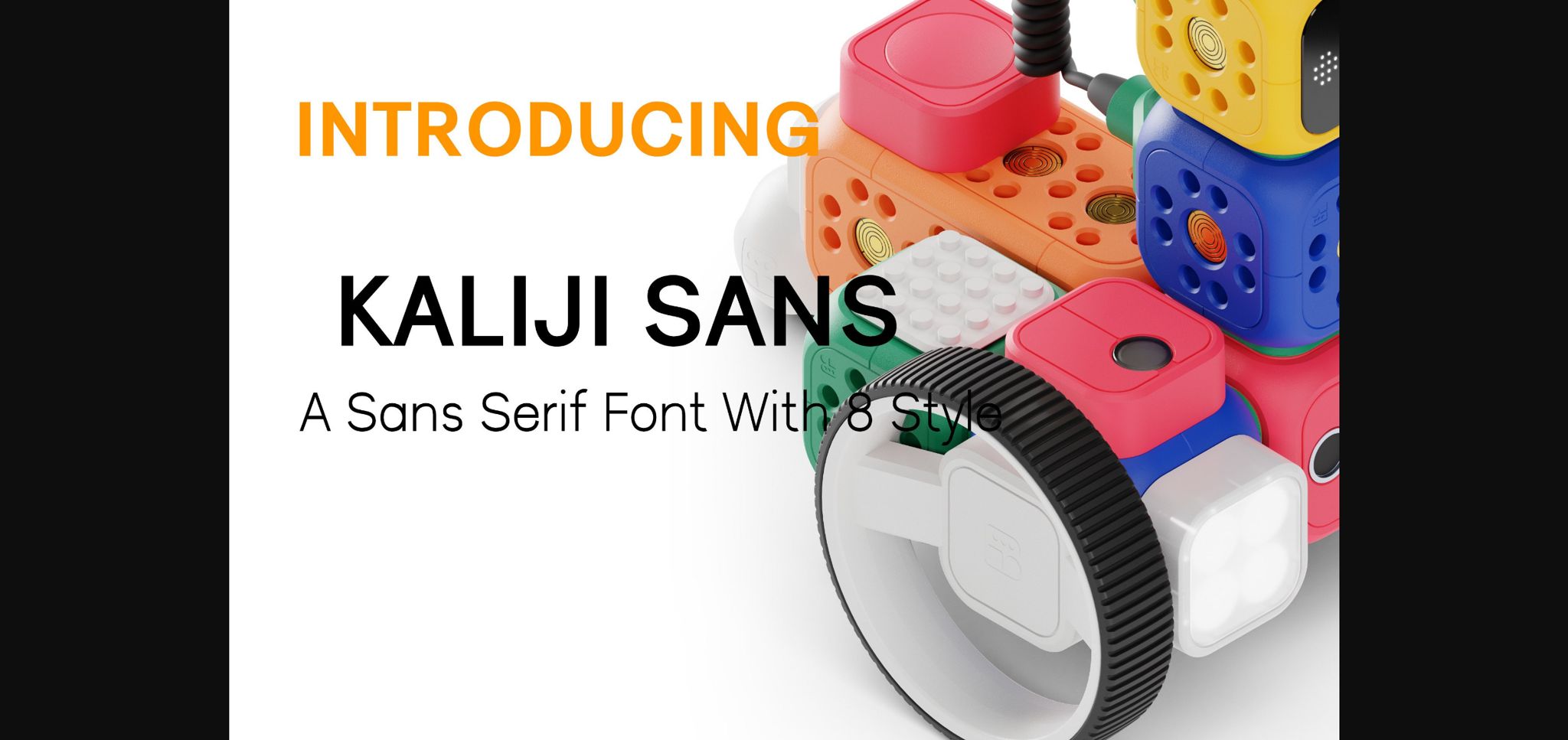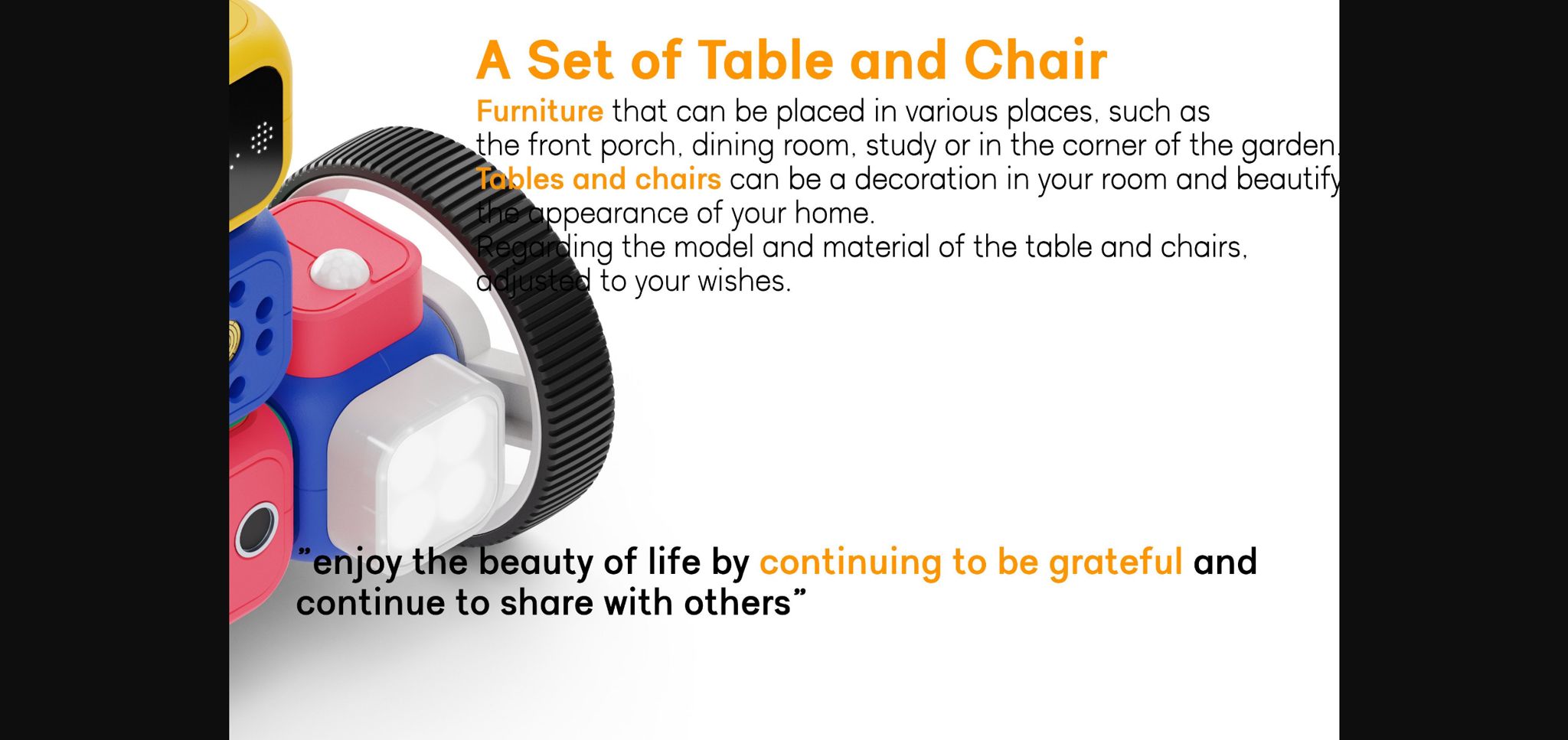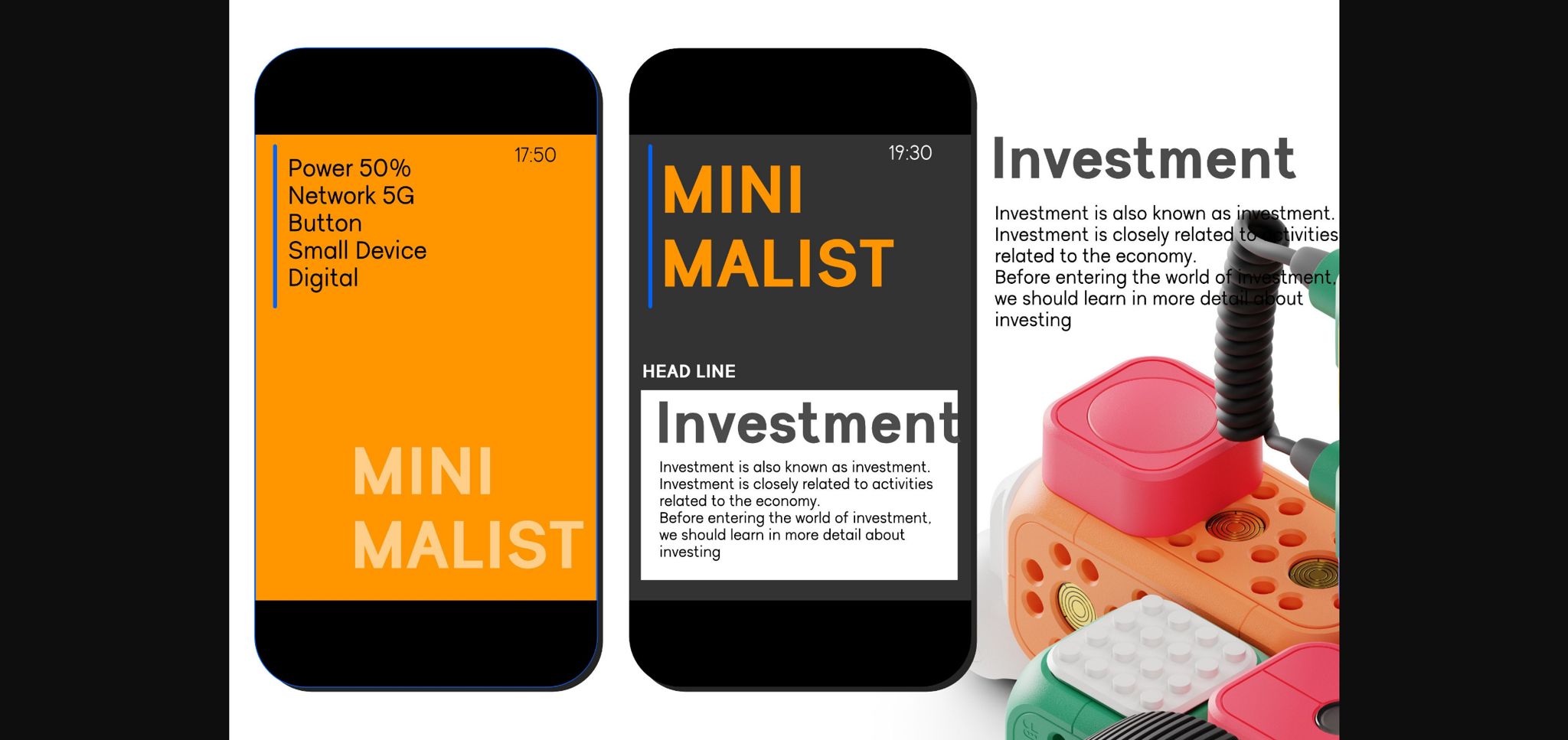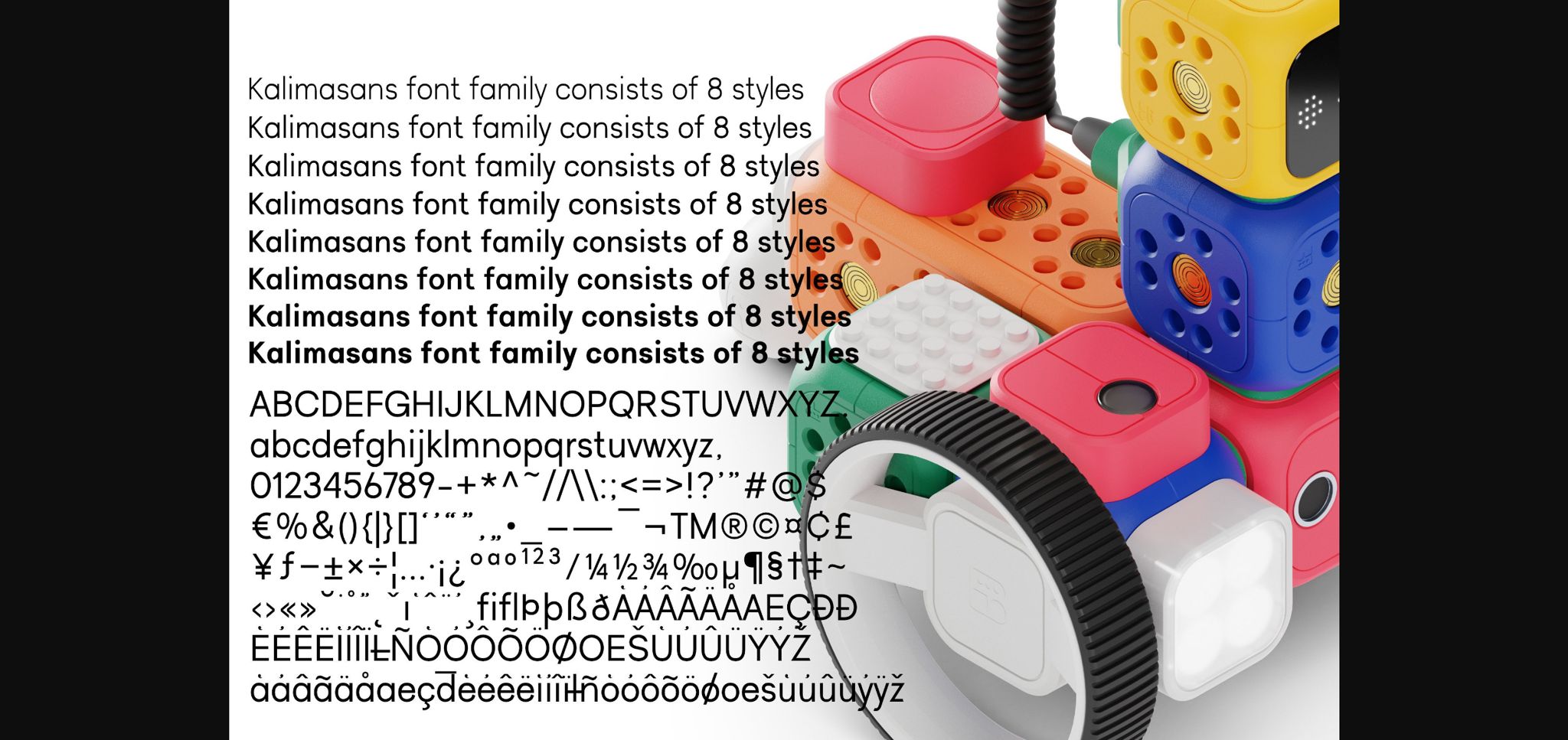
Kaliji Sans is a classic sans serif font. Its various styles make it incredibly versatile and suitable for a wide pool of design ideas. Add it confidently to your projects and you will love the results!